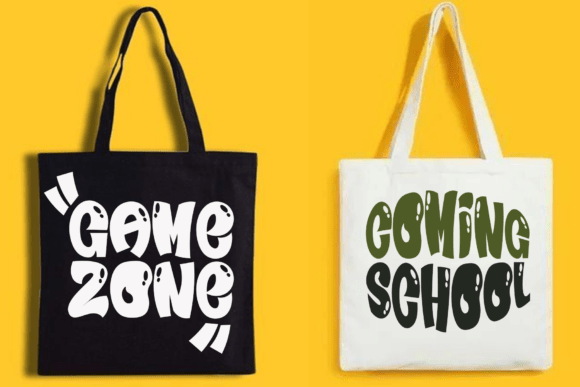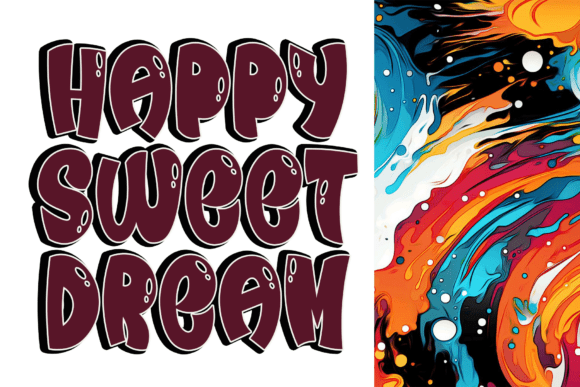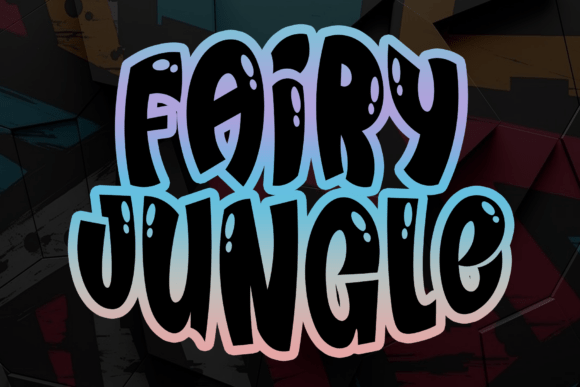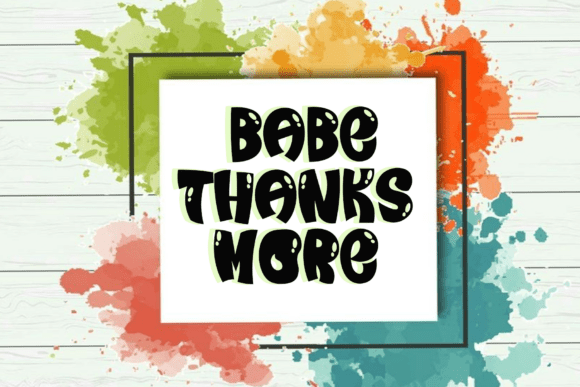
Introduction to Paint Feel Font
Paint Feel is a neat and casual display font that radiates fun and relaxation.
With clean lines and an easygoing vibe, itโs perfect for summer posters, event flyers, and playful branding This cheerful typeface brings a breezy, laid-back feel to any creative project or message.
Key Features of Paint Feel Font